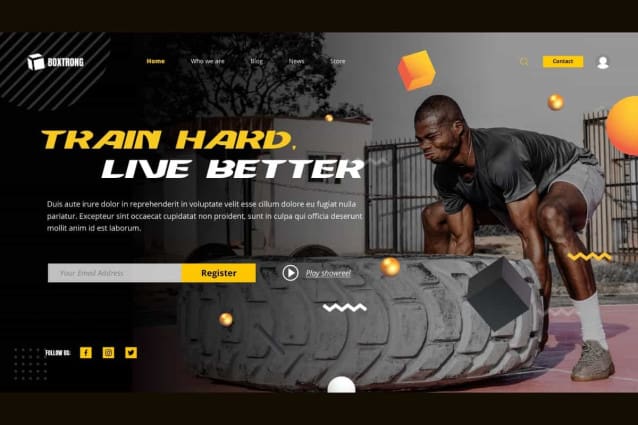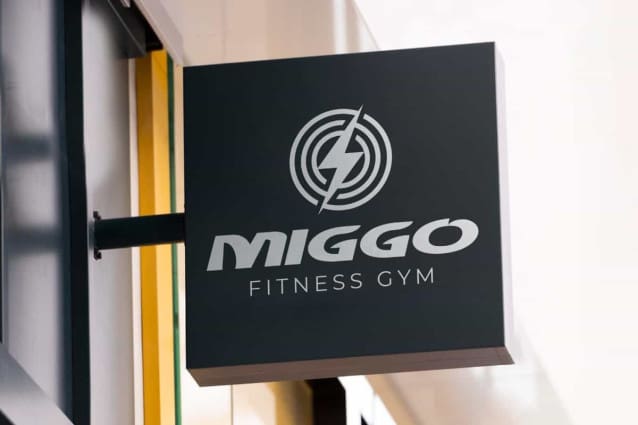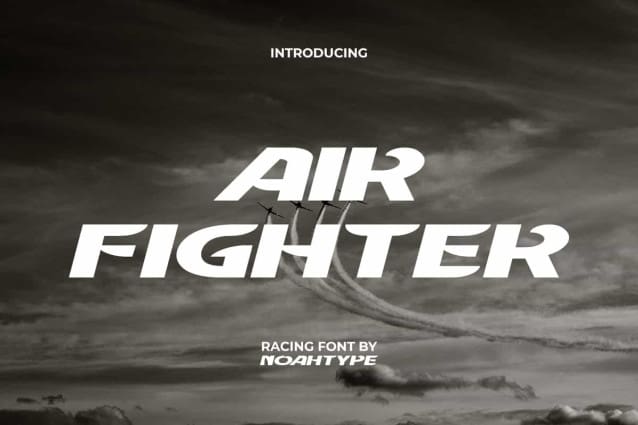
Air Fighter Font
Air Fighter Font is an attractive sporty sans serif display font by NoahType. This font brings a racing theme with font characters inspired by airplane wings, making it look unique. It will be good for any designs, such as brand image, cover, custom design, invitation, label, marketing material, menu, poster, product packaging, quotes, signage, stationery, web, and many more!
Air Fighter Font includes a complete set of ALL CAPS for Uppercase and Lowercase Basic Characters, Numerals, Punctuation, and Symbol. The characters of this font will give amazing look and also a perfect choice for many industries, such as accessories, advertising, event or festival, fashion, game, printing, publishing, sports, travel, etc.